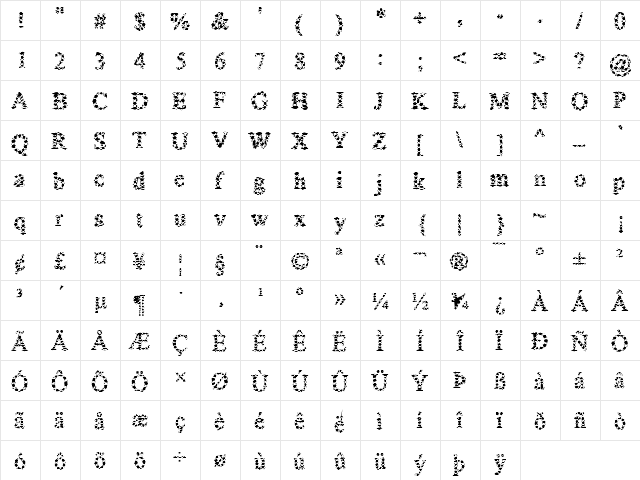
Wittersham Regular
Design Context for Wittersham Typeface
Wittersham is a composed and adaptable typeface that performs quietly and consistently across a wide range of design contexts.
Pro Tip: Pair Wittersham with a font of contrasting weight or personality to build a more expressive typographic hierarchy.